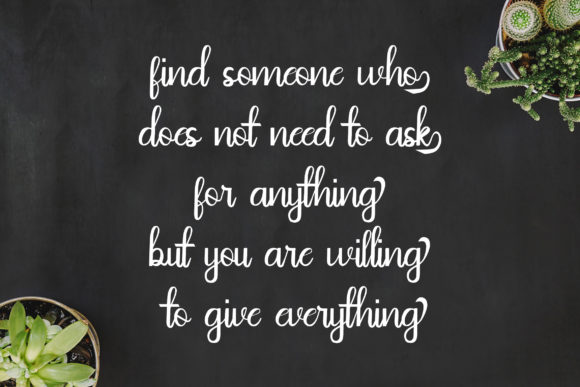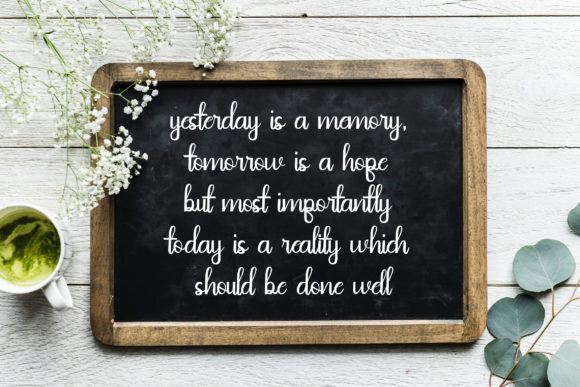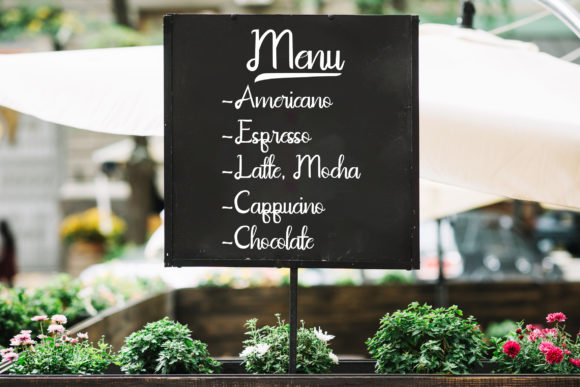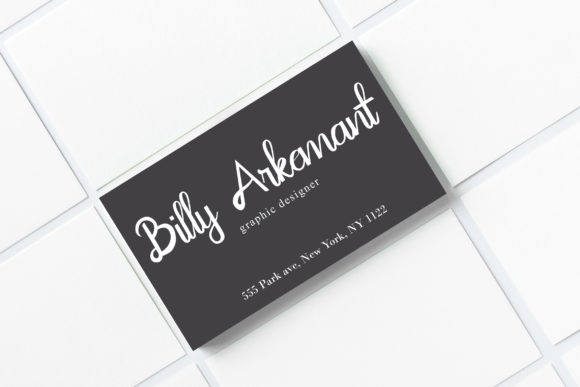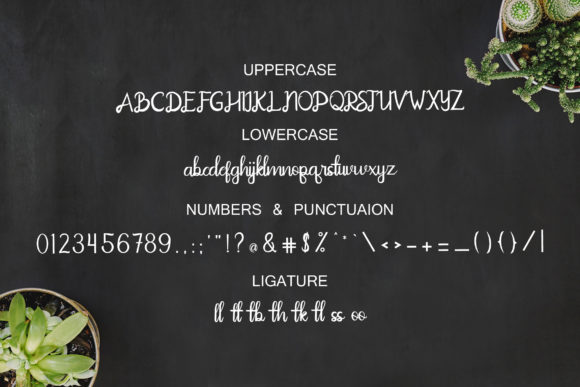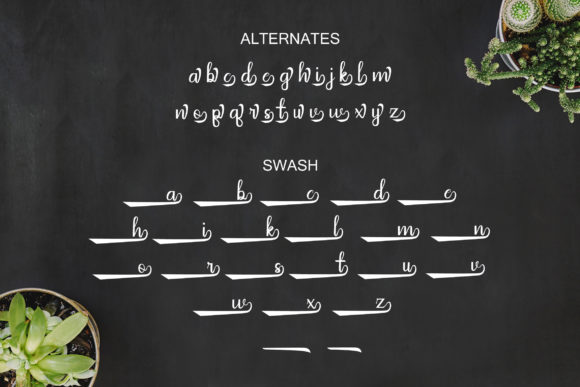
Introducing Arthunia Script Font: Elevate Your Designs with a Vintage Touch
Are you tired of using the same old fonts in your design projects? Do you want to add a touch of elegance and sophistication to your creations? Look no further than Arthunia Script Font, a bold and beautiful handwritten font that is sure to inspire your next design venture. With its unique feel and vintage touch, Arthunia Script is the perfect addition to any design project.
The Unique Characteristics of Arthunia Script Font
Arthunia Script Font is a one-of-a-kind font that boasts a distinctive and elegant style. Its bold and beautiful handwritten design makes it perfect for a wide range of design projects, from wedding invitations and branding materials to packaging and advertising. The font’s unique feel is characterized by its flowing lines, intricate details, and classic charm.
The Benefits of Using Arthunia Script Font
So why choose Arthunia Script Font for your design projects? Here are just a few benefits of using this amazing font:
- Adds a touch of elegance: Arthunia Script Font is perfect for designers who want to add a touch of sophistication and elegance to their designs.
- Unique and distinctive: With its bold and beautiful handwritten design, Arthunia Script Font is sure to make your designs stand out from the crowd.
- Vintage charm: The font’s vintage touch is perfect for designers who want to create designs that evoke a sense of nostalgia and classic charm.
- Versatile: Arthunia Script Font can be used for a wide range of design projects, from wedding invitations and branding materials to packaging and advertising.
How to Use Arthunia Script Font in Your Designs
Using Arthunia Script Font in your designs is easy. Here are a few tips to get you started:
- Pair it with a sans-serif font: Pairing Arthunia Script Font with a sans-serif font is a great way to create contrast and add visual interest to your designs.
- Use it for headings and titles: Arthunia Script Font is perfect for headings and titles, where its bold and beautiful design can really make an impact.
- Experiment with different colors: Arthunia Script Font looks great in a wide range of colors, from bold and bright to soft and pastel.
Design Project Ideas Using Arthunia Script Font
So what design projects are perfect for Arthunia Script Font? Here are a few ideas to get you started:
- Wedding invitations: Arthunia Script Font is perfect for wedding invitations, where its elegant and sophisticated design can help set the tone for a special day.
- Branding materials: Arthunia Script Font can be used to create a wide range of branding materials, from logos and business cards to letterheads and packaging.
- Advertising: Arthunia Script Font is perfect for advertising, where its bold and beautiful design can help grab attention and make a lasting impression.
- Packaging: Arthunia Script Font can be used to create eye-catching packaging that stands out on store shelves.
In conclusion, Arthunia Script Font is a bold and beautiful handwritten font that is sure to inspire your next design project. With its unique feel and vintage touch, it’s the perfect addition to any design project. Whether you’re a designer, crafter, or DIY enthusiast, Arthunia Script Font is a must-have font that will help you create stunning designs that stand out from the crowd.